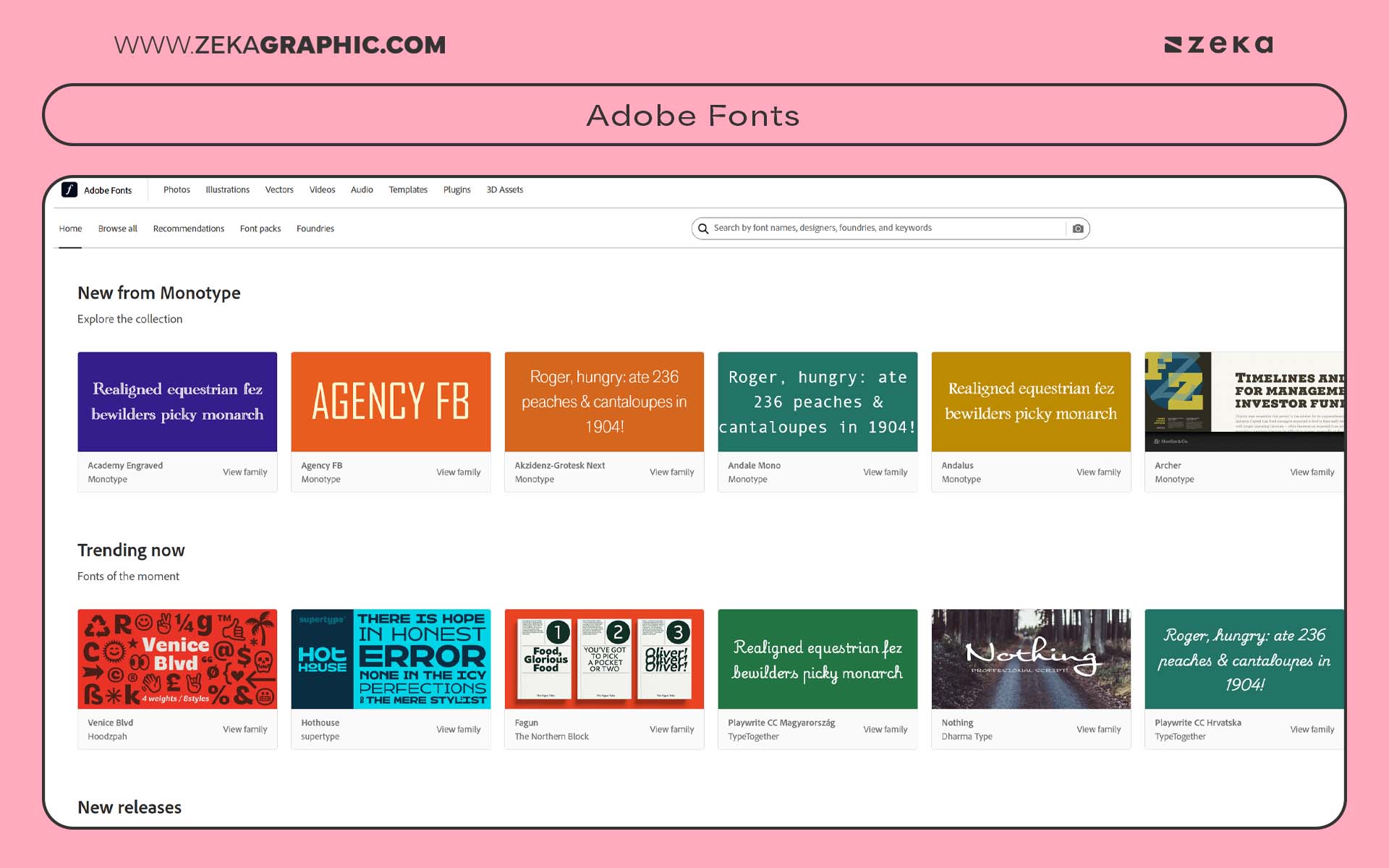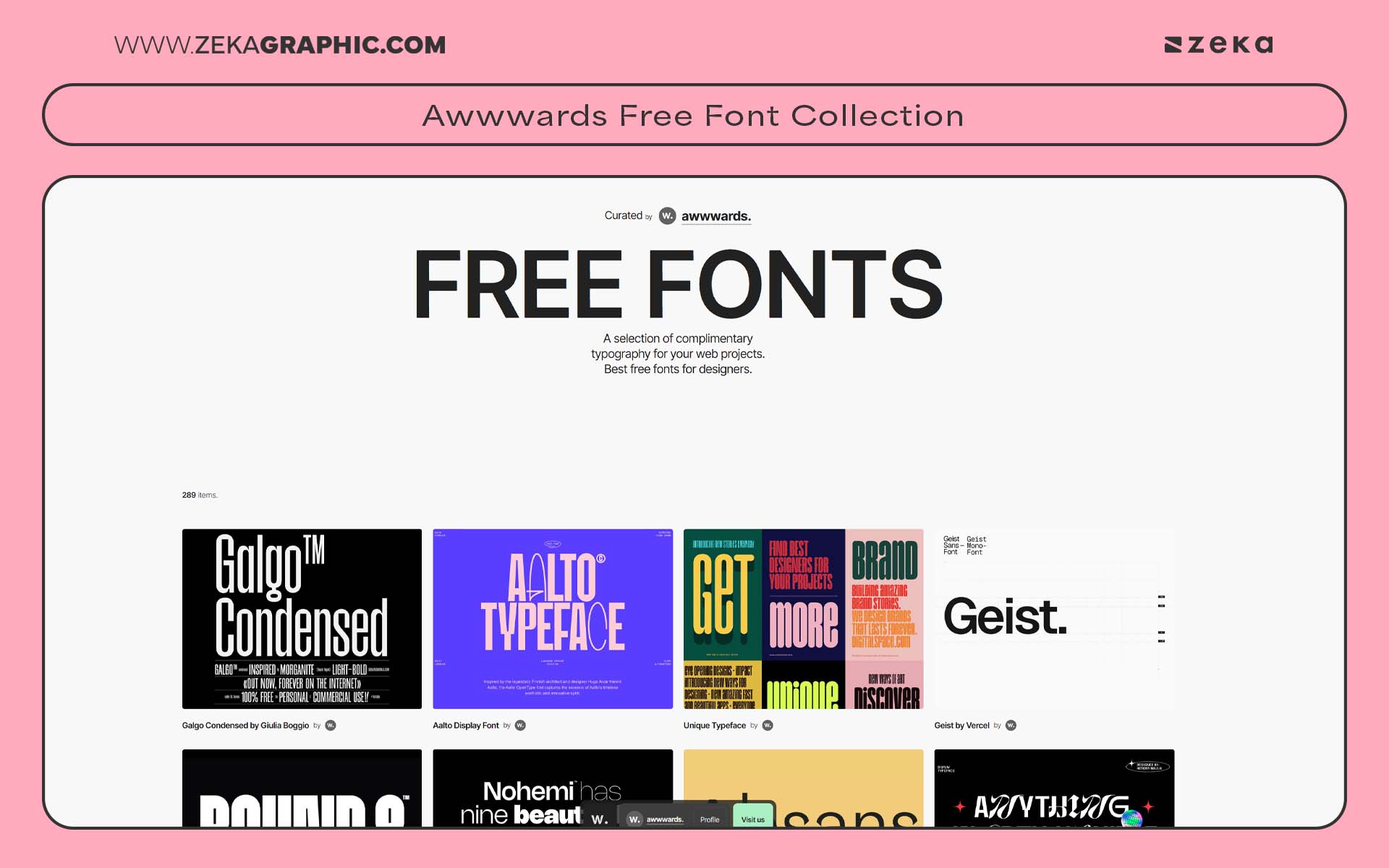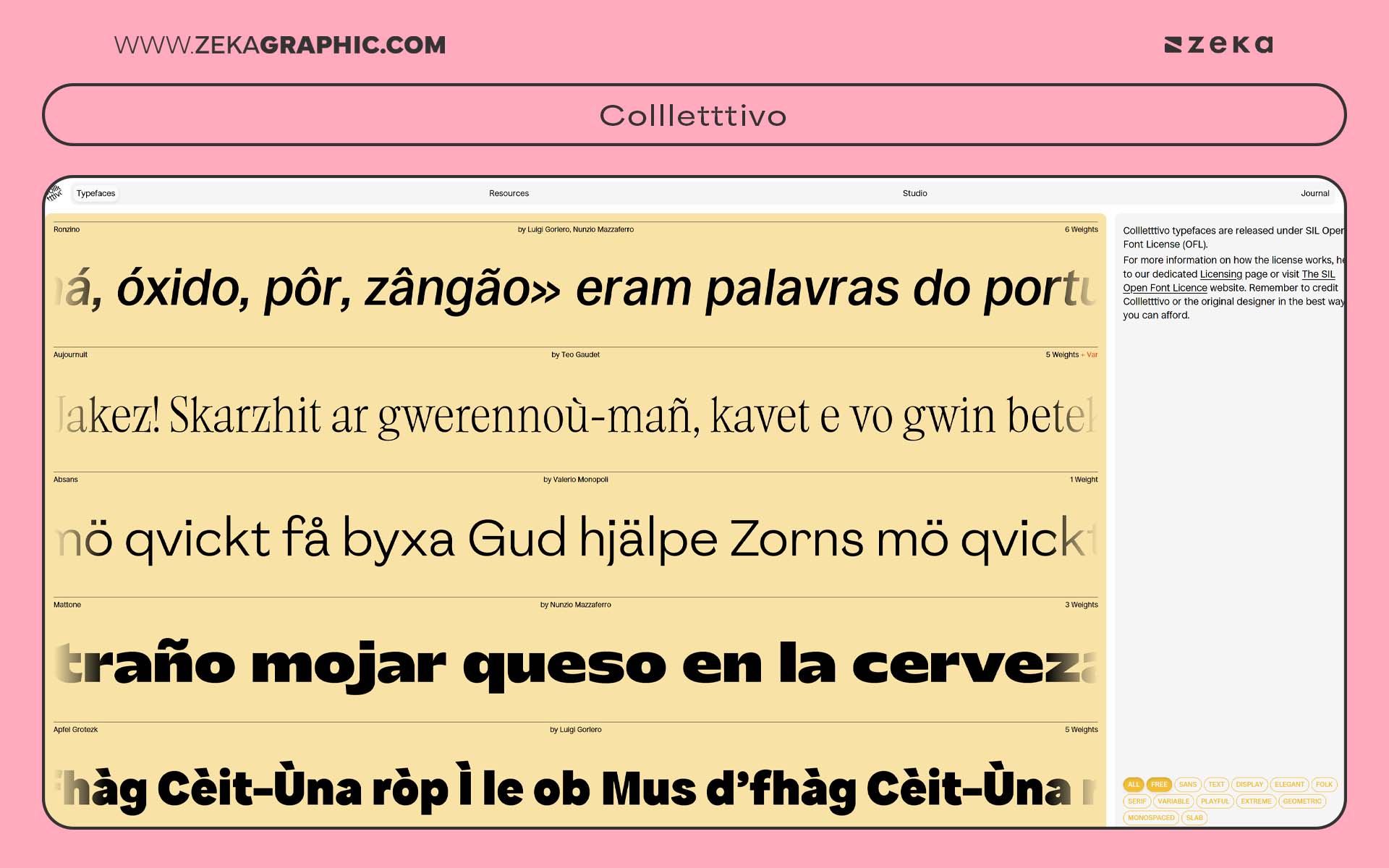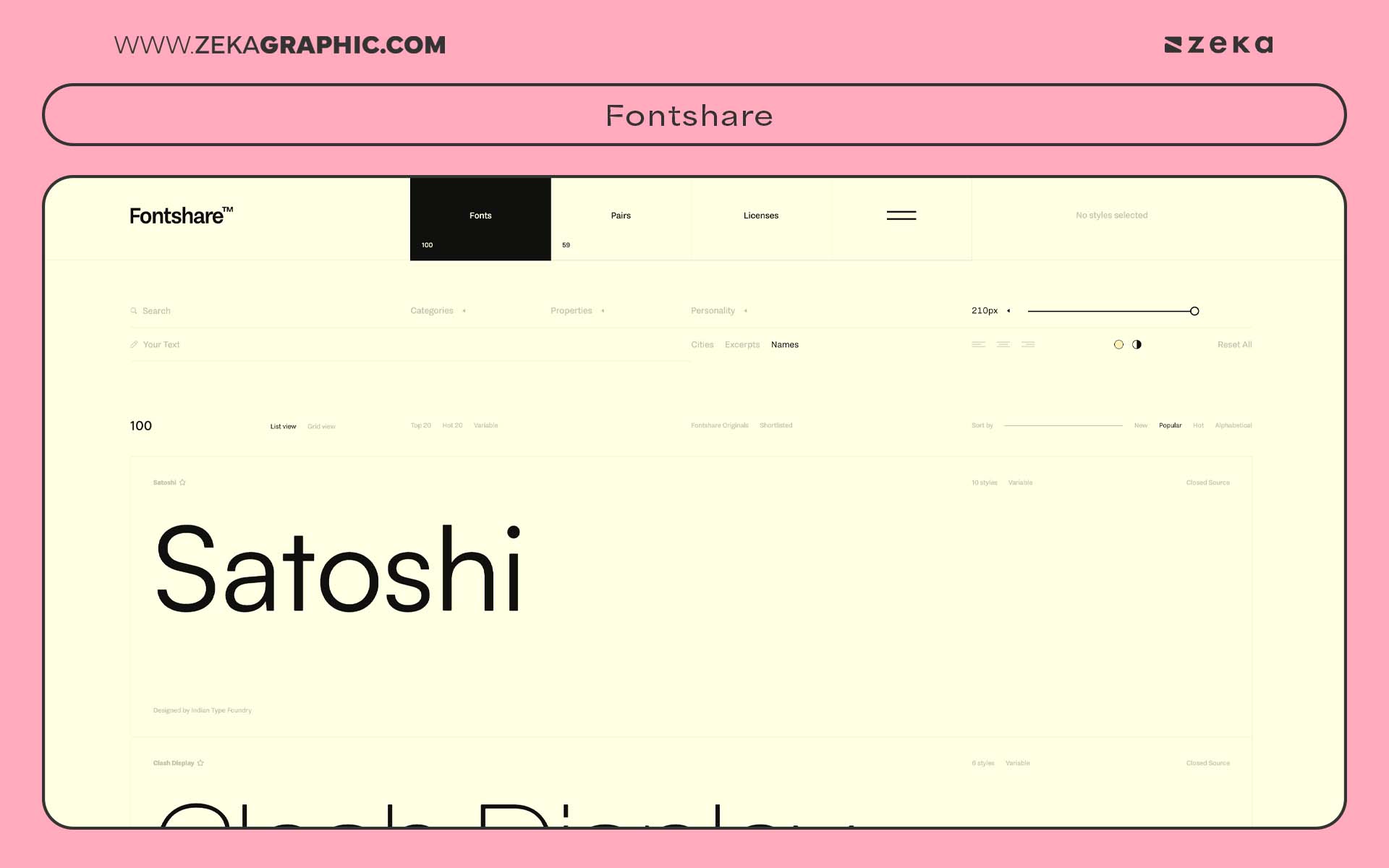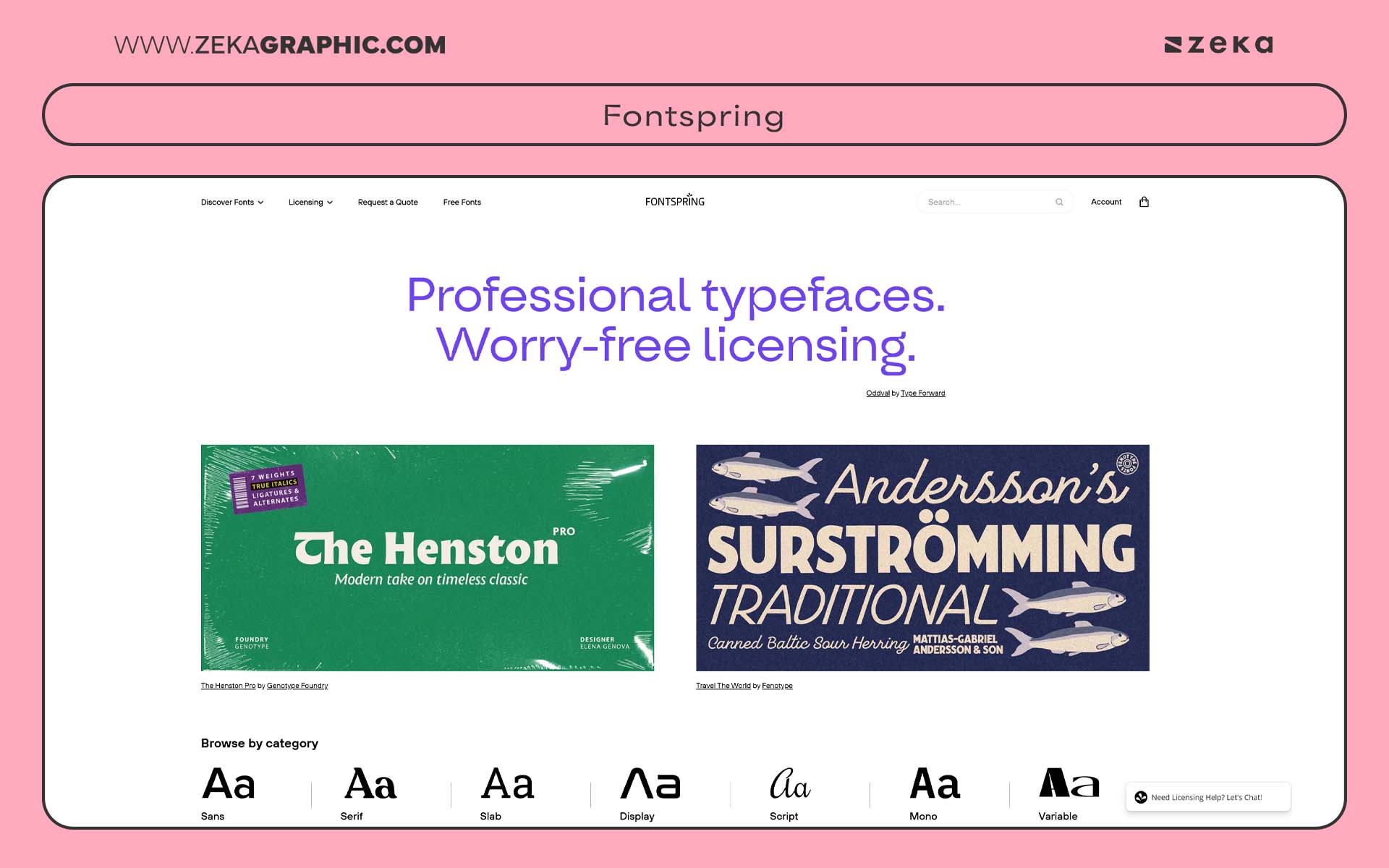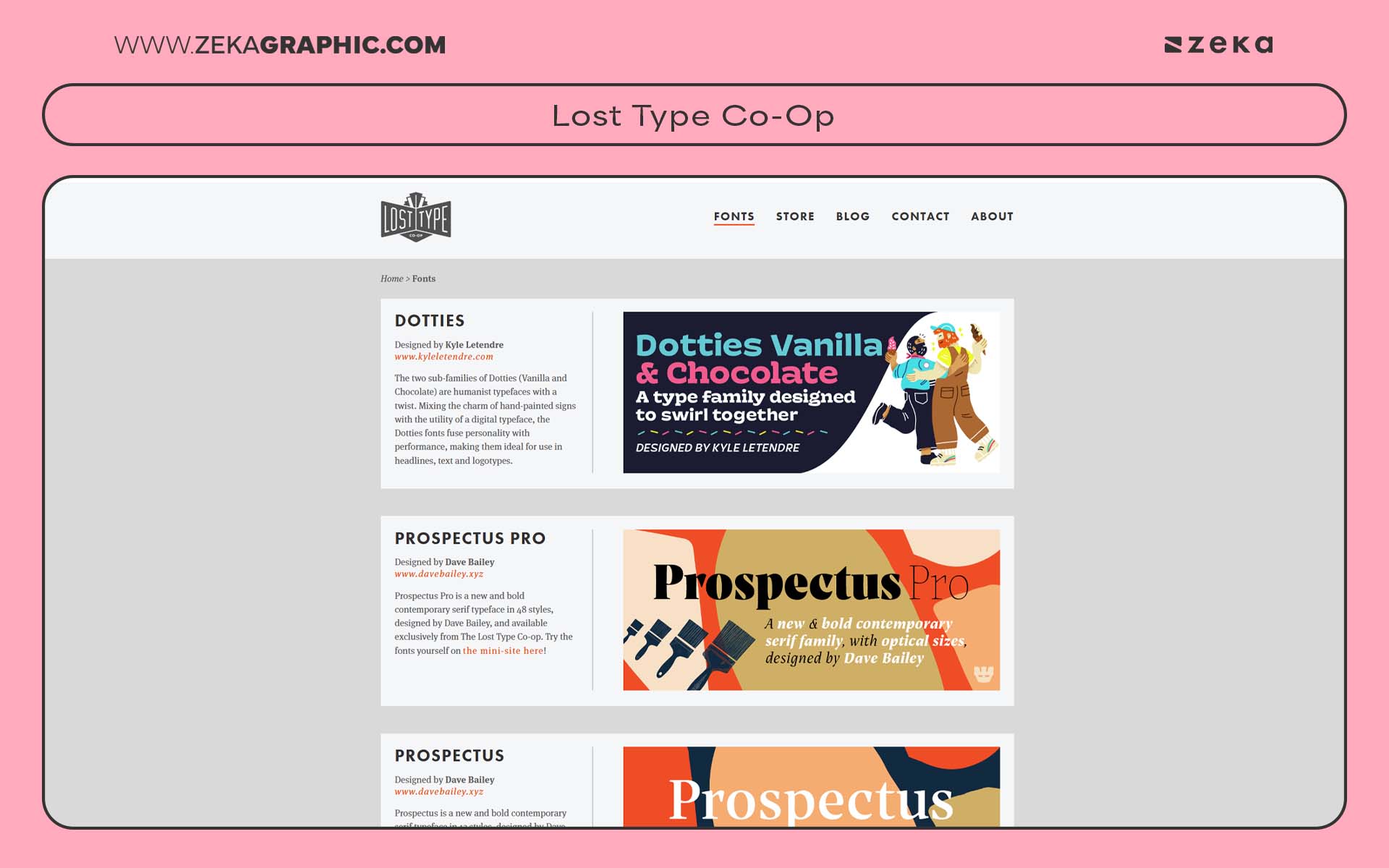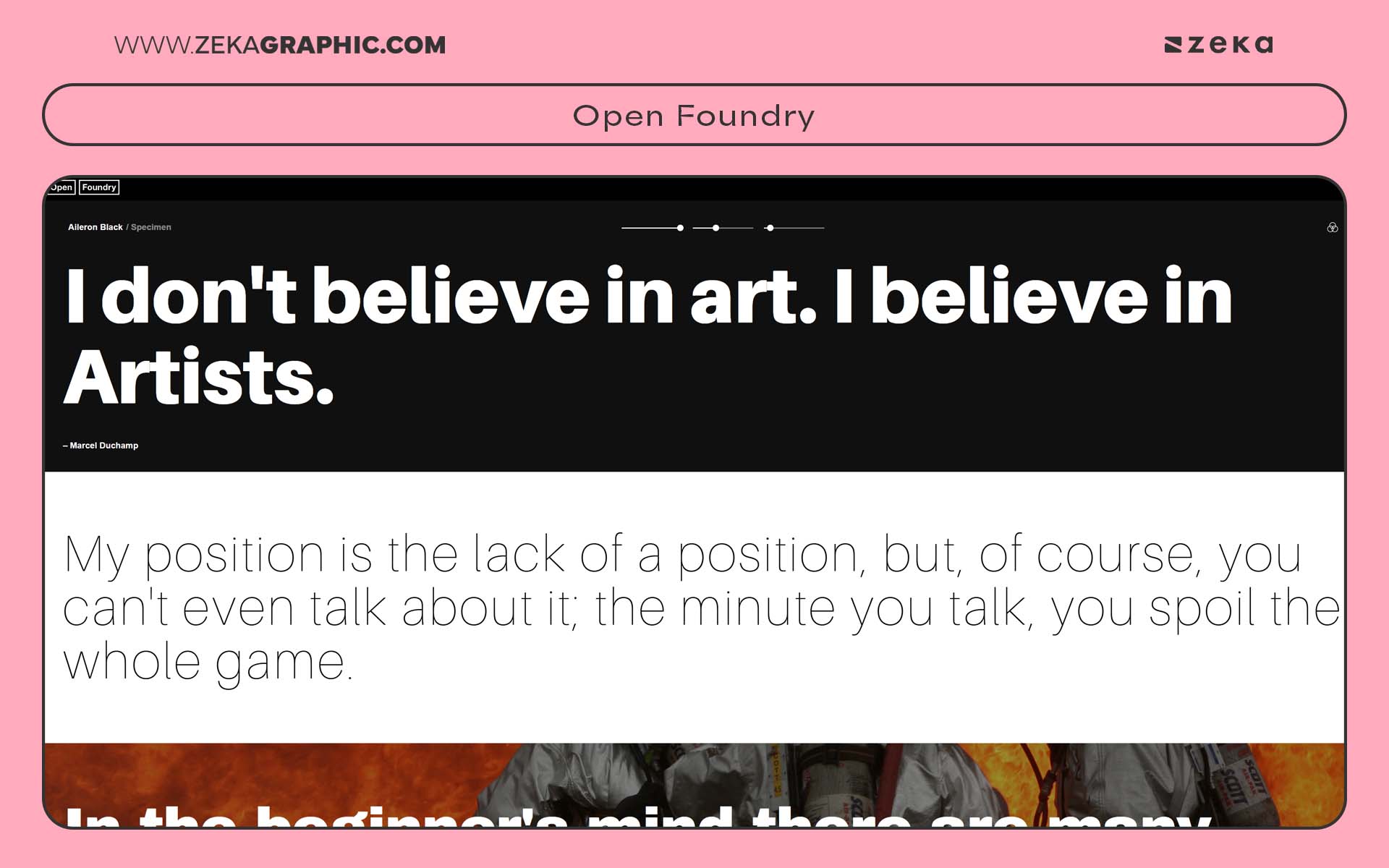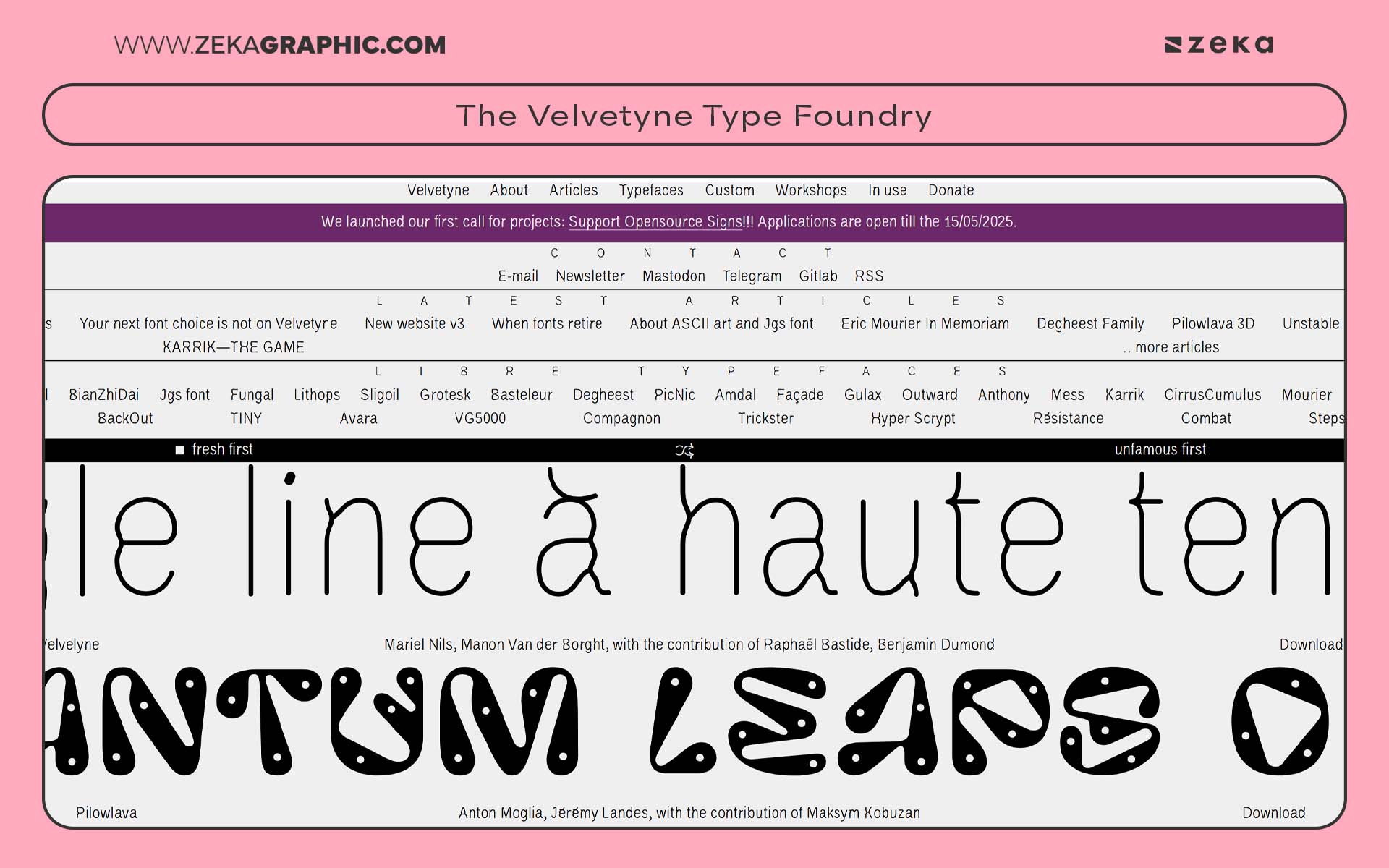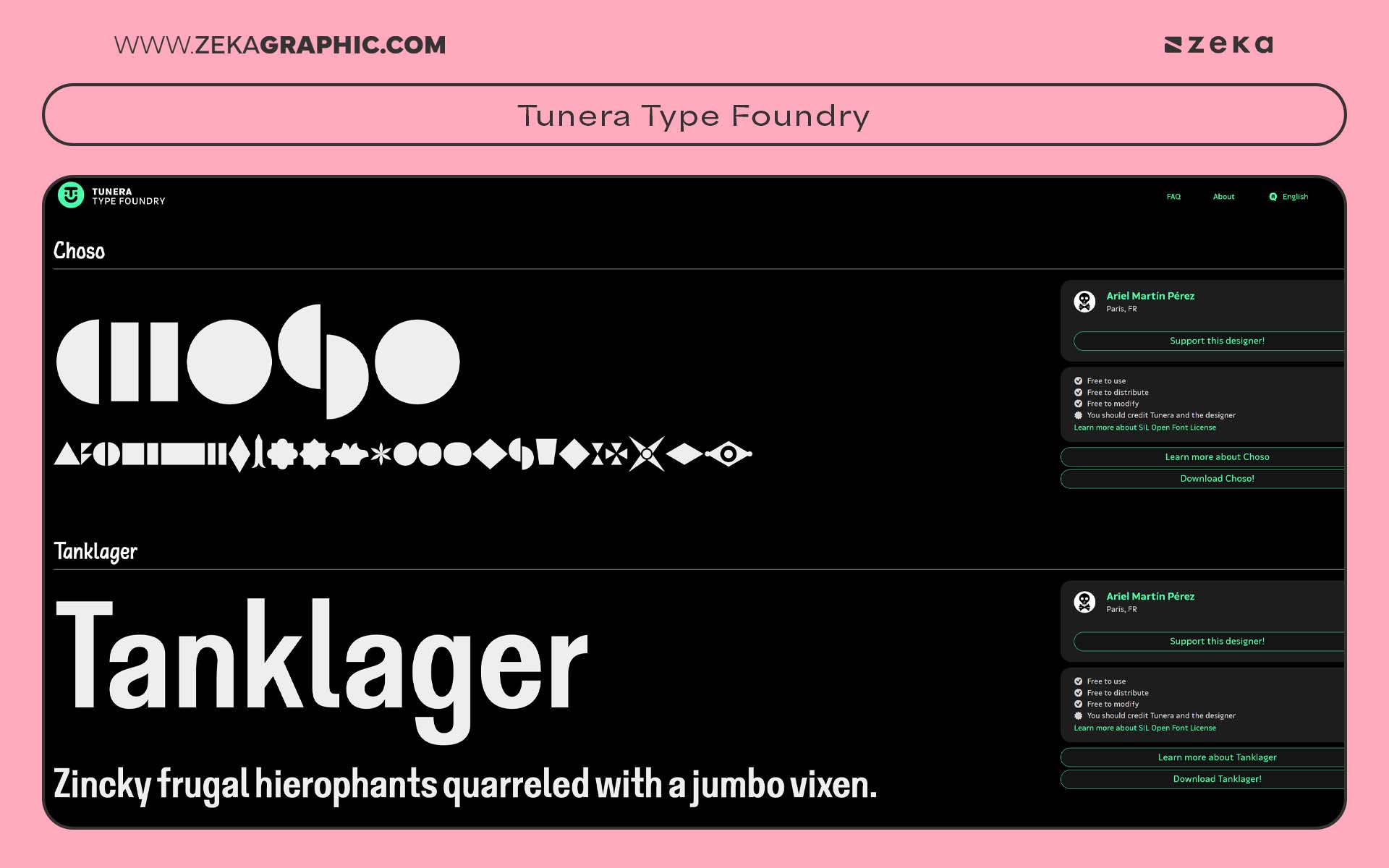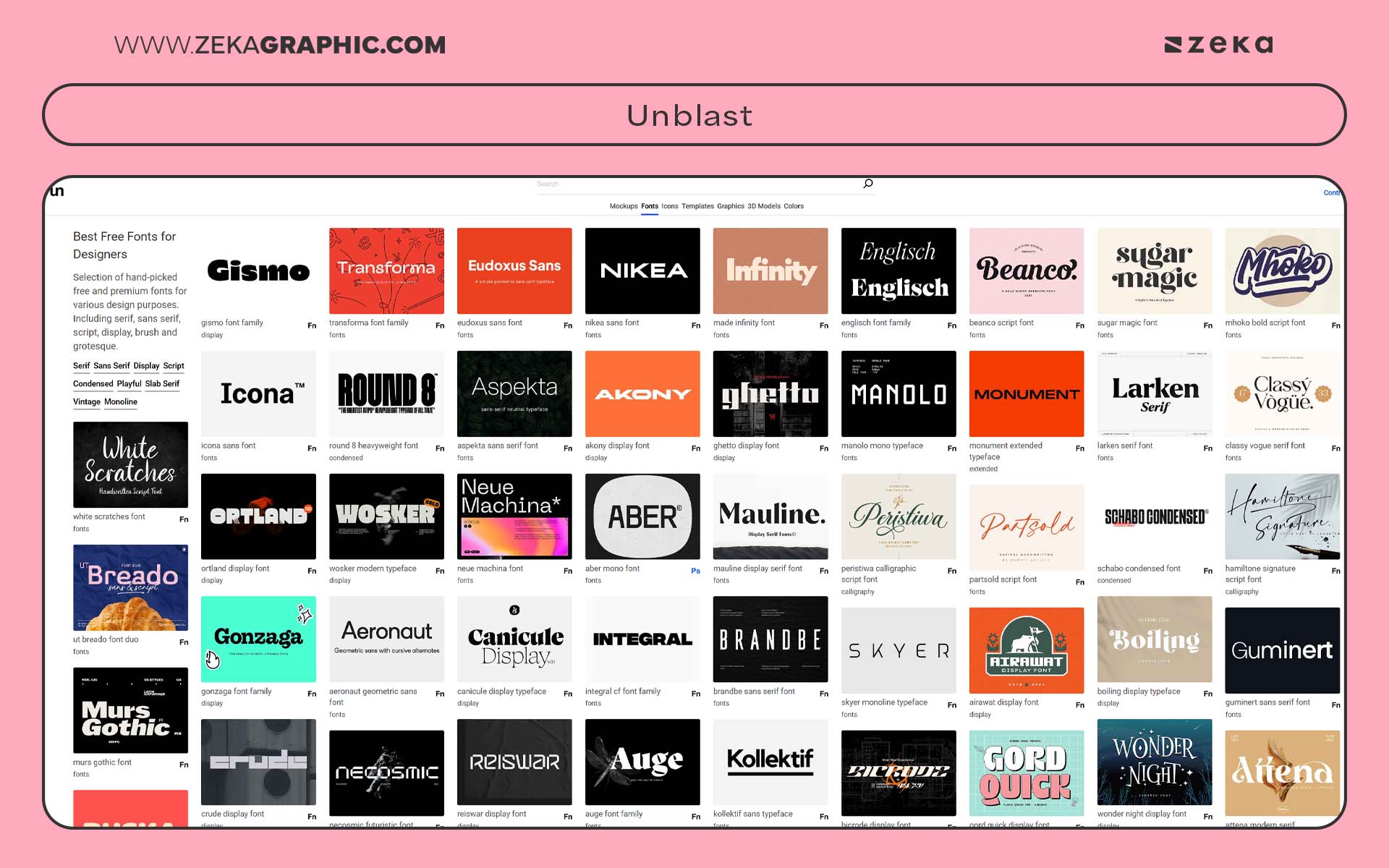
+11 Best Websites for Fonts (Free & Paid Picks for Designers)
11 Best Websites for Fonts for Designers
Finding the right font can totally change the vibe of a project. It’s kind of like choosing the perfect soundtrack for a film — it sets the tone, adds personality, and pulls everything together. As a designer, I know how overwhelming it can be to sift through thousands of typefaces online, especially when you’re looking for something that feels just right.
That’s why I put this guide together — to help fellow graphic designers find high-quality, professional fonts without the headache. Whether you’re working on branding, web design, editorial layouts, UI/UX, packaging, or a personal creative project, this list has you covered.
We’ll walk through the best websites for fonts, from open-source gems to elegant serifs and bold experimental styles. I’ve included my personal go-to platforms, tips on licensing (super important!), and suggestions on where each type of font really shines. If you’ve ever spent way too long searching for “that one perfect font,” this post is for you.
1. Fontshare
Fontshare is my favorite under-the-radar gem. Run by the Indian Type Foundry, Fontshare offers completely free fonts that feel anything but basic. These aren’t your average freebies—we’re talking about commercial-quality typefaces that hold up next to premium font foundries.
What makes Fontshare standout is the attention to detail and variety. You’ll find fonts great for branding projects, bold headlines, and clean UI design. They also serve as great Google Fonts alternatives when you want something fresher or more distinctive.
Highlights:
• All fonts are free for personal & commercial use
• Well-designed with modern typographic trends
• Excellent for UI/UX, editorial layouts, and startups
2. Google Fonts
It wouldn’t be a complete font list without the OG: Google Fonts. While often seen as utilitarian, it’s actually a powerful resource for UI/UX designers, web developers, and anyone who needs web-safe fonts that are free and fast to load.
The biggest perk is instant web integration and full open-source licensing. I also appreciate their pairing tool—perfect when you’re building type hierarchies for a site or brand.
Highlights:
• 1,400+ fonts with open-source licenses
• Easy to embed in web projects
• Strong search filters and pairings
3. Adobe Fonts
If you’re already using Adobe Creative Cloud, Adobe Fonts is a goldmine. You get instant access to thousands of high-quality fonts without worrying about separate licensing, which makes it a lifesaver for commercial projects.
One of my favorite things? Fonts sync directly into your Adobe software—no downloads, no ZIP folders, no installation drama. Whether you’re designing a pitch deck in InDesign or prototyping in XD, your type is right there when you need it. Plus, everything in the Adobe Fonts library is licensed for both personal and commercial use.
Here’s why Adobe Fonts is great:
• Integrated into Creative Cloud apps
• Thousands of professional-grade fonts
• No need for additional licenses
• Constantly updated with trending typefaces
4. Tunera Type Foundry
If you’re looking to diversify your type library and discover work from global creatives, Tunera Type is a gem. Based in Latin America, Tunera offers both free and paid fonts with a distinct cultural and aesthetic perspective. There’s a strong emphasis on storytelling, identity, and personality in their typefaces.
I particularly recommend Tunera for packaging, editorial, and any branding project where you want to stand out with authenticity. Their fonts blend thoughtful design with expressive form, and many are free for personal or commercial use.
Why Tunera Type is worth exploring:
• Unique fonts with Latin flair
• Mix of free and premium options
• Great for branding with personality
• Diverse typographic voices from outside the mainstream
5. Awwwards Free Font Collection
Awwwards is best known for spotlighting award-winning websites, but their free font collection is a design nerd’s dream. The site curates typefaces that have been used in some of the most visually stunning web designs, making it an excellent resource if you’re building portfolio sites, UI kits, or digital branding.
The fonts here tend to be modern, minimalist, and very trend-forward. You won’t find a massive catalog, but every font is vetted for design quality—no fluff, no filler.
Highlights:
• Curated by top web designers
• Ideal for web and app UI
• Sleek, contemporary typefaces
6. Lost Type Co-Op
Lost Type Co-Op has a special place in my designer heart. It’s one of the first platforms that allowed users to pay what they want for fonts — with all proceeds going directly to the type designer. That’s not just cool, it’s community-driven design at its best.
The catalog leans toward vintage, Americana, and retro aesthetics, making it a top pick for branding projects with a nostalgic or editorial vibe. Each font page is beautifully presented, and many of the fonts come with detailed specimens and creative use cases.
Highlights:
• Support independent type designers directly
• Unique, stylized fonts with personality
• Ideal for editorial layouts and branding
• One of the OGs of open, ethical type distribution
Best Websites for Fonts Lost Type Co-Op
Advertisment
7. Open Foundry
If you’re into typography with a cause, Open Foundry is your spot. It’s a platform that promotes open-source typefaces with a strong lean toward minimalist, modern design and ethical licensing. Fonts from Open Foundry are perfect for those who want their work to not only look good but feel intentional.
I love that many of their fonts are created by independent designers and type collectives, meaning you get personality, originality, and purpose all in one.
Highlights:
• Ethically licensed and open source
• Great for editorial, web, and minimalist branding
• Well-documented font specimens
Best Websites for Fonts Open Foundry
8. Fontspring
Let’s talk peace of mind. Fontspring stands out as a haven for designers who need clear, no-nonsense licensing — especially when dealing with client work. What I appreciate most is their “Worry-Free” licensing model, which makes it easy to understand how fonts can be used commercially. There are no monthly subscriptions, no shady bundles, just straightforward pricing and rights. It’s a go-to when you don’t want legal surprises down the line.
This site is loaded with professional-grade fonts from well-known foundries, and the search tools are a dream for filtering by style, usage rights, and more. You’ll find everything from clean sans-serifs for corporate branding to playful display fonts for packaging and marketing.
Why Use Fontspring:
• Worry-Free licensing for many fonts
• One-time payment — no subscriptions
• Clean UI and smart search features
• Regular font deals and sales
Best Websites for Fonts Fontspring
Advertisment
9. Velvetyne Type Foundry (VTF)
The Velvetyne Type Foundry is where things get weird—in the best way. If you’re working on an editorial project, zine, or experimental web layout, this site will feed your inner typographic rebel.
VTF specializes in bold, expressive, and often rule-breaking typefaces. All their fonts are open source, so you can modify them and use them freely. This makes it perfect for graphic designers who want to push boundaries and stand out from the crowd.
Perfect for:
• Designers who love unusual, artistic fonts
• Editorial and cultural publications
• Projects that need personality and punch
Best Websites for Fonts The Velvetyne Type Foundry
10. Unblast
Unblast is one of those multi-resource platforms that does it all—mockups, templates, UI kits, and yes, fonts. The free font section in particular is worth bookmarking if you’re a designer juggling branding and presentation design.
Their fonts often lean sleek and stylish, with some strong serif and sans-serif options. Unblast is especially useful when you want to pair a font with mockups for pitches or client projects.
Highlights:
• Font and mockup bundles
• High-quality free downloads
• Great for branding and presentations
Best Websites for Fonts unblast_
11. Collletttivo
Collletttivo is a design collective, and their fonts reflect that collaborative spirit. Their library includes open-source experimental fonts designed by a mix of talented typographers who aren’t afraid to take risks. Some are raw and expressive, others more refined—but all have personality.
If you’re into editorial design or branding projects with an edge, these fonts can give your layout a distinct voice. The site is clean, and most fonts are free to use and modify, making it great for students, freelancers, or indie designers on a budget.
Highlights of Collletttivo:
• Collective of type designers
• All fonts are open-source and modifiable
• Strong visual experimentation
• Great for bold editorial layouts
Best Websites for Fonts Collletttivo
Advertisment
Bonus Websites For Fonts
FontsArena
FontsArena is like the indie record store of typography. You won’t find a massive library here, but every font on the platform is thoughtfully chosen for design quality and licensing clarity.
What makes FontsArena a favorite among branding and editorial designers is its clean interface and trustworthy font curation. You’re not just grabbing something random — you’re getting fonts that feel premium and actually come with licenses that are safe for client work.
Why you’ll love it:
• Curated for quality, not quantity
• All fonts reviewed with licensing clarity
• Clean and easy-to-navigate UI
Free Design Resources – Fonts
Need a font and a mockup yesterday? Free Design Resources has your back. This site curates fonts, templates, UI kits, and more, often bundled in design-ready packs that you can grab and use instantly.
It’s especially useful if you’re working under tight deadlines or you’re building out branded presentations, portfolios, or marketing materials. While not every font is licensed for commercial use, they clearly list the licensing terms on each item page—which is crucial.
Top reasons to bookmark this site:
• Great for quick project turnarounds
• Bundled with templates and other freebies
• Constantly updated with new content
Advertisment
Free Faces
Free Faces is a minimalist dream. It’s not the flashiest website, but it’s definitely one of the most intentional when it comes to curating fonts from independent foundries. What makes Free Faces special is its tight, thoughtful selection—you won’t find an overwhelming list of typefaces here. Instead, you’ll get carefully chosen fonts that are made by talented indie designers who care deeply about typography. It’s like a boutique gallery of free type.
As a designer who values originality and supports the independent creative scene, this is one of those sites I keep bookmarked. Most of the fonts come with open-source or generous personal/commercial licenses, but always double-check before downloading.
What makes Free Faces awesome:
• Curated from small, independent type foundries
• Often free for commercial use
• Simple, no-fuss UI
• Fonts with a lot of character and identity
Font Squirrel
If you’re after commercial-safe fonts without legal headaches, Font Squirrel should be at the top of your list. This site has been around for years and has earned a strong reputation for offering high-quality fonts that are 100% free for commercial use. They even manually verify licenses, which is a huge plus.
I love their smart filtering system—you can sort by classification (serif, sans-serif, display), language support, and even tag styles like vintage or modern. Font Squirrel also offers a handy webfont generator, perfect for UI/UX designers who need custom font kits.
Why Font Squirrel is still a go-to:
• Every font is checked for commercial license use
• Offers a Webfont Generator tool
• Very user-friendly filters
• Ideal for freelance and agency designers with client work
Creative Market
Creative Market is where I go when I want something stunning, handcrafted, and high-end. While it’s primarily a paid platform, they offer weekly free fonts and bundles, which often include some incredible typefaces that feel boutique.
If you’re branding a client or want to invest in a font that sets your work apart, this is the place. Designers sell their fonts directly, so you’re often supporting small foundries and creatives from around the world. Pro tip: Their bundles and sales are goldmines for stocking up your font collection.
Reasons to browse Creative Market:
• Premium, boutique-quality fonts
• Frequent free downloads every Monday
• Ideal for branding and packaging design
• Also offers mockups, graphics, and templates
Advertisment
UNCUT
UNCUT is not your average font site—and that’s what makes it awesome. It’s all about loud, rebellious, expressive typefaces that don’t play by traditional rules. If you’re working on editorial zines, posters, or bold social campaigns, you’ll love what UNCUT offers.
Their collection is relatively small, but it’s extremely distinctive. Most fonts are open-source or share-friendly, and their creative direction leans heavily toward experimental and DIY aesthetics. You won’t use these fonts for a corporate rebrand—but that’s exactly the point.
Why UNCUT deserves a bookmark:
• Fonts with bold visual identity
• Great for edgy, underground design projects
• Most typefaces are open-license
• Pure creative energy with punk vibes
The League of Moveable Type
One of the pioneers of open-source typography, The League of Moveable Type remains a solid favorite for web and UI/UX design. Their mission: make beautiful fonts free and accessible to all. And honestly? They’ve done an incredible job.
Their fonts are professionally made, often collaborative, and always well-documented. If you’re working on a digital-first brand or a product interface, these typefaces bring both modern sensibility and licensing peace of mind.
Some of my personal favorites from the League include League Spartan and Raleway — bold, clean, and flexible across platforms.
Why It’s Worth Bookmarking:
• 100% open-source and free for commercial use
• Excellent documentation and specimens
• Great for web, UI, and editorial layouts
• Designed with designers in mind
Advertisment
Behance Font Projects
Behance isn’t just a portfolio site — it’s a treasure trove of free fonts designed by creatives around the world. Many designers upload typefaces as passion projects or promotions, which means you’ll find unique and often highly artistic fonts not available anywhere else.
The licensing varies (some are personal use only, others are fully free), so always double-check before downloading. Still, for those looking to add character and originality to a design, it’s one of the best under-the-radar places to look.
Pro Tip: Use search filters like “Free Fonts” or browse typography collections curated by design communities. You’ll be amazed at the gems hidden there.
Top Reasons to Explore Behance Fonts:
• One-of-a-kind font projects
• Great for display and experimental work
• Easy previews and downloadable specimen PDFs
• Global talent sharing their best type work
Final Tips: Licensing, Attribution & Font Pairing Tools
Before you go font-hunting, let’s cover the boring but critical stuff — licensing and pairing. Not all “free” fonts are free for client projects or commercial use. Always check the license: is it Open Font License (OFL), desktop-only, webfont-enabled, or does it require attribution?
Pro Tip: If you’re unsure, stick with platforms that clearly state usage rights (like Fontspring, Google Fonts, or Fontshare). These sites simplify compliance and keep your workflow smooth.
When it comes to pairing fonts, use tools like:
These resources can save you hours of trial-and-error when building a typographic system.
Why This Matters:
• Avoid legal pitfalls in commercial work
• Build better font stacks for branding & UI
• Save time and elevate your typography game
Advertisment
Conclusion
Fonts are more than just letters — they’re voice, tone, and emotion. Now that you’ve got this handpicked list of the best font sites, your next project is already one step ahead.
Whether you’re building a minimalist brand, launching a complex UI, or crafting a zine with some punch, this toolbox has everything: free resources, premium picks, vintage charm, and digital precision.
Keep it bookmarked, share it with your design buddies, and most importantly — get typographically inspired.
Let’s make type better, together.